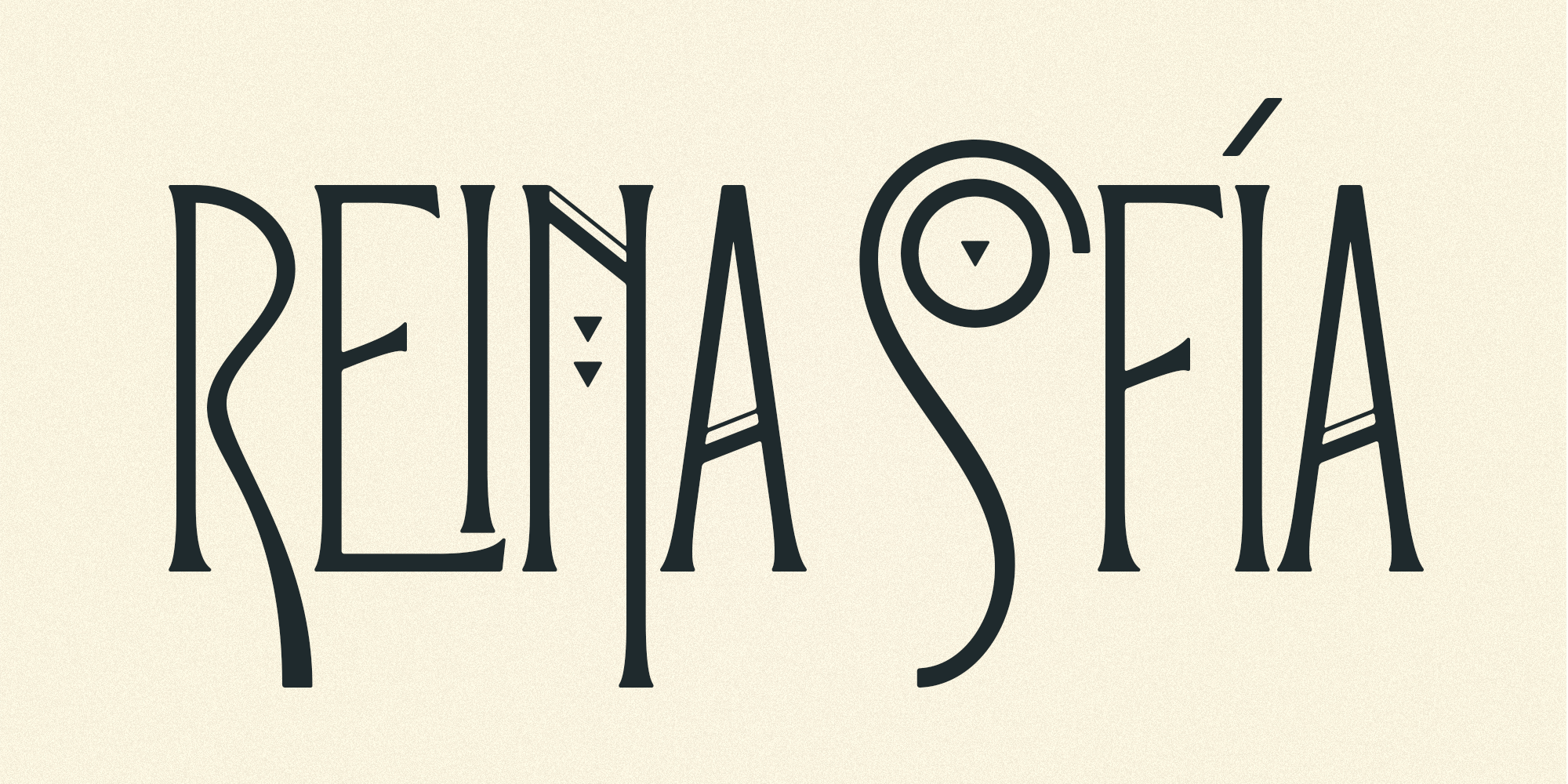
Please note, you must purchase this font for commercial use. You can download Reina Sofia Font Free Download for testing purposes and explore its elegant, refined design. Reina Sofia Font is perfect for upscale branding, luxury product packaging, invitations, editorial layouts, and any design that requires a sophisticated, timeless touch.
With its graceful serifs, smooth curves, and classic proportions, Reina Sofia Font exudes a sense of elegance and luxury. It’s ideal for high-end marketing materials, premium branding, and any creative project that needs to convey a sense of refinement and prestige.
Reina Sofia Font Free Download supports multilingual characters, making it versatile for global projects and diverse audiences. Its beautifully designed characters ensure readability, while maintaining a distinguished and elegant style, perfect for both large headings and smaller body text.